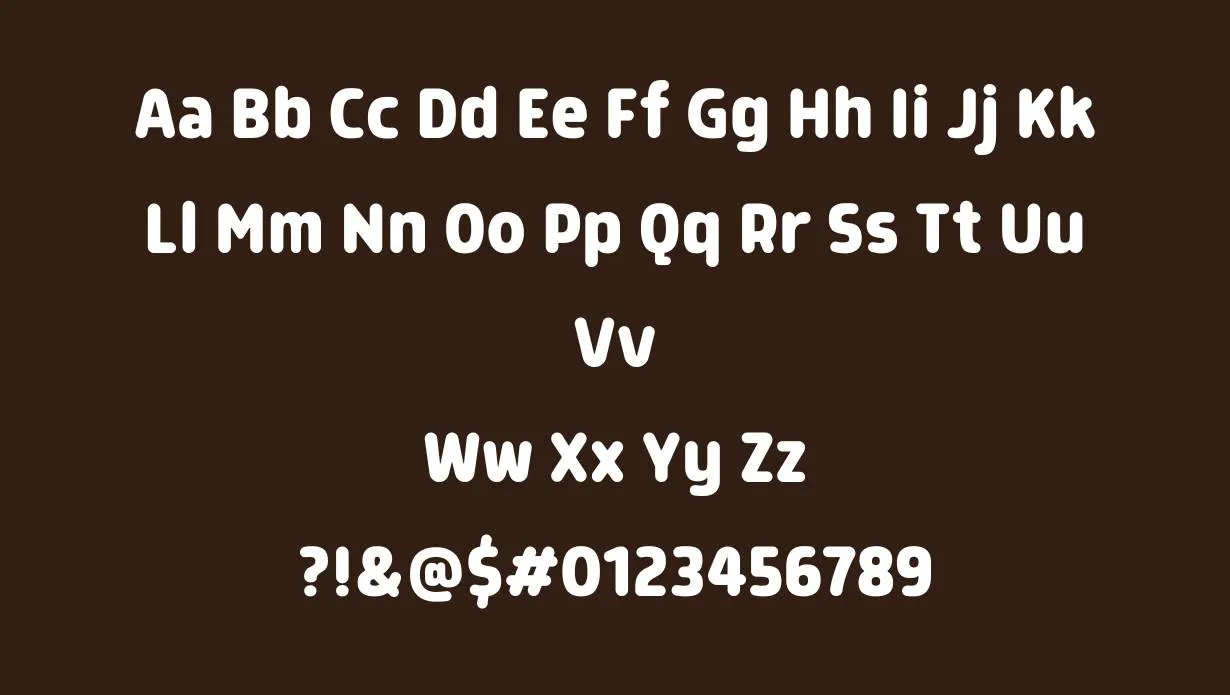
Morebi Rounded Font has a soft and friendly style. Its smooth, curved letters give a playful and approachable feel to any text. This font is often seen in designs aiming for a casual and welcoming vibe, making it perfect for social media or advertisements.
Its rounded appearance adds a touch of warmth, making the text look inviting and cheerful. Whether used in posters or branding, this font brings a sense of friendliness and ease to the writing.
| Name | Morebi Rounded Font |
| Designer | Takaaki Goto |